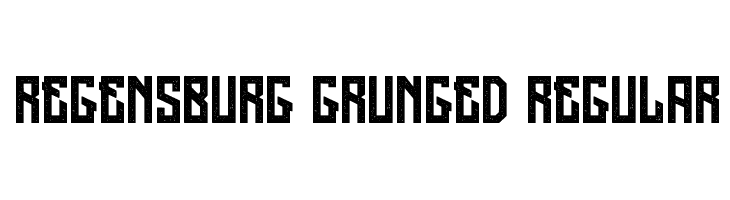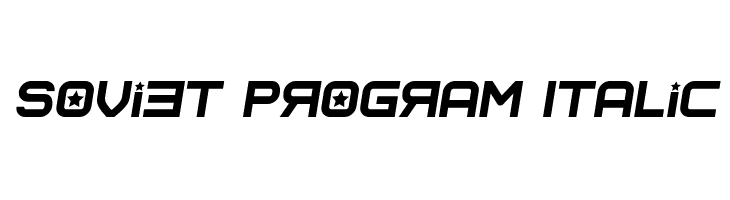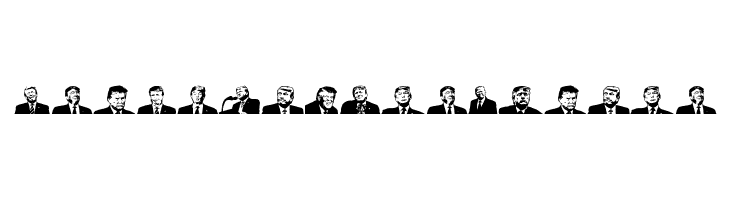
( Vladimir Nikolic - www.coroflot.com/vladimirnikolic )
A decorative font using illustrated caricatures as glyphs.
( Vladimir Nikolic - www.coroflot.com/vladimirnikolic )
A bold and expressive brush script font with a hand-painted look.
( Vladimir Nikolic - www.coroflot.com/vladimirnikolic )
A bold, distressed font with a grungy, vintage texture.
( Vladimir Nikolic - www.coroflot.com/vladimirnikolic )
A bold, geometric font with a blocky, industrial style.
( Vladimir Nikolic - www.coroflot.com/vladimirnikolic )
A bold, italicized font with a dramatic shadow effect for added depth.
( Vladimir Nikolic - www.coroflot.com/vladimirnikolic )
A bold, geometric font with high contrast and a theatrical flair.
( Vladimir Nikolic - www.coroflot.com/vladimirnikolic )
A bold, shadowed font with a theatrical, three-dimensional style.
( Vladimir Nikolic - www.coroflot.com/vladimirnikolic )
A bold, italicized font with a shadow effect for dramatic impact.
( Vladimir Nikolic - www.coroflot.com/vladimirnikolic )
A bold, italic font with sharp angles and dynamic strokes.
( Vladimir Nikolic - www.coroflot.com/vladimirnikolic )
A bold, geometric font with a shadow effect for a dramatic, modern look.